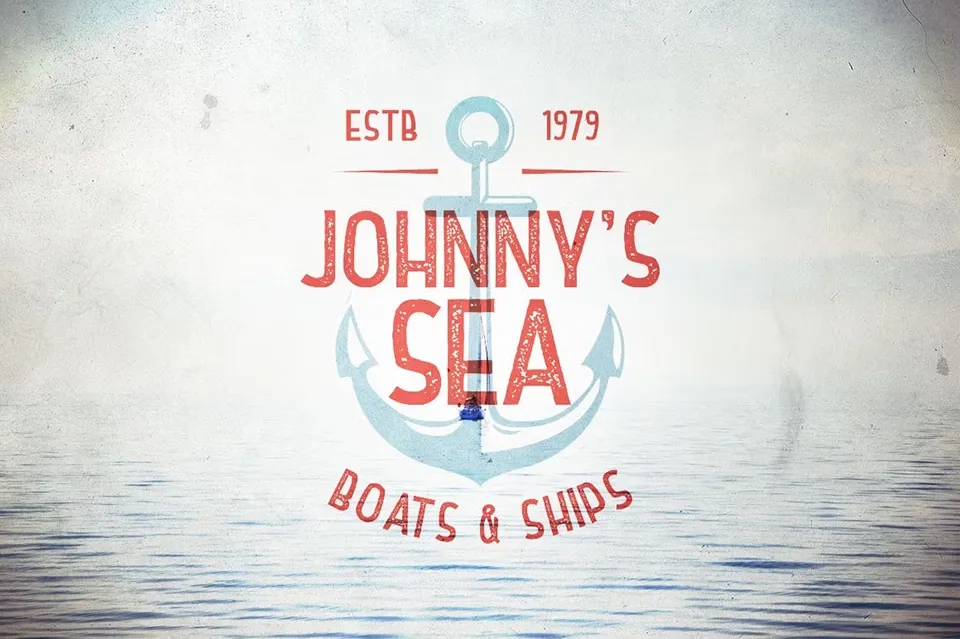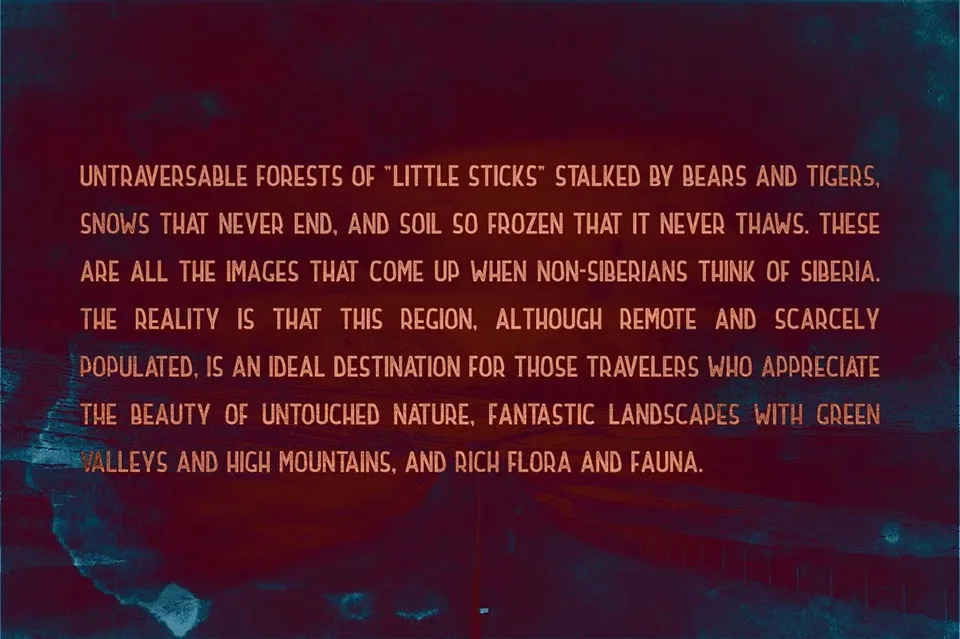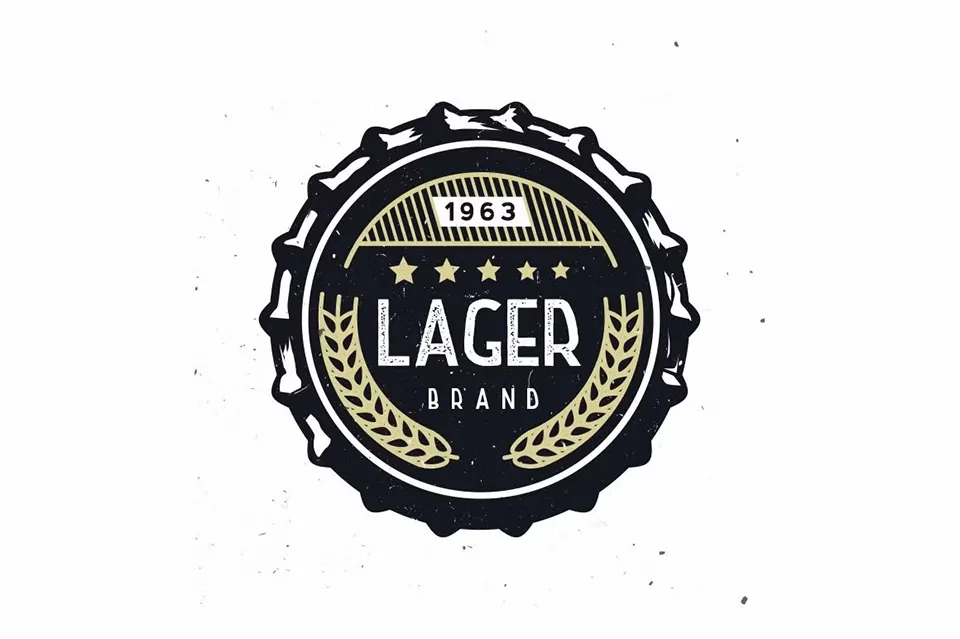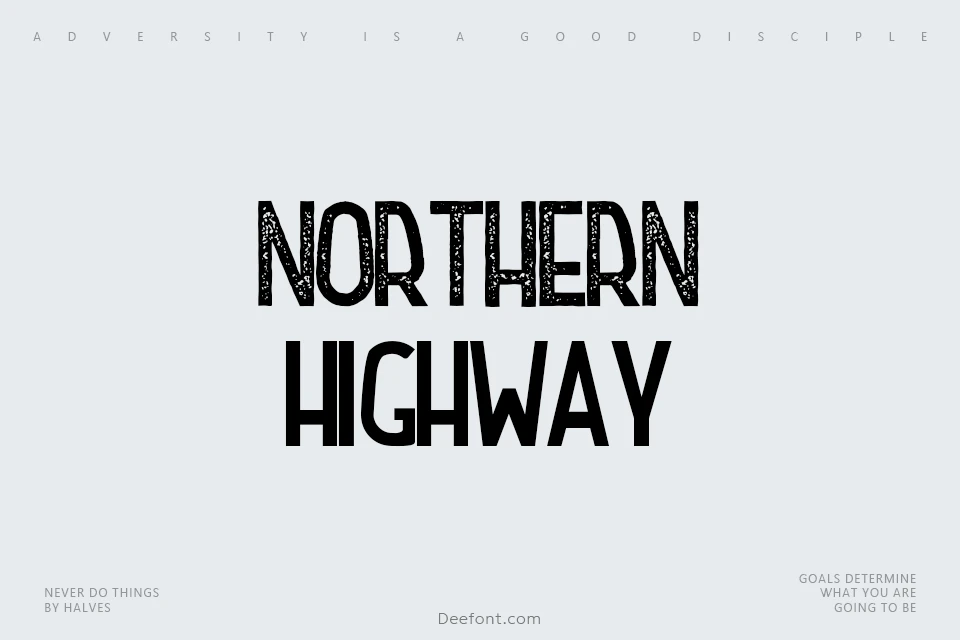
Northern Highway Font
Northern Highway Font is a retro, vintage-inspired font duo designed by Roman Paslavsky. Featuring two distinct styles-clean and rough with a gritty, distressed texture-this font offers versatility for a wide range of creative projects. It’s perfect for logos, t-shirt prints, business cards, posters, ads, and more, allowing you to mix and match the styles for a unique and eye-catching design.